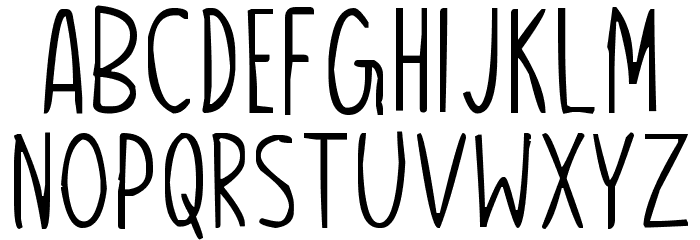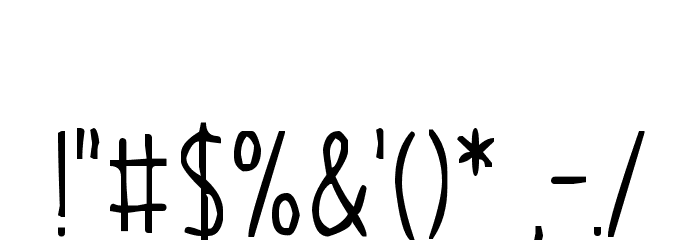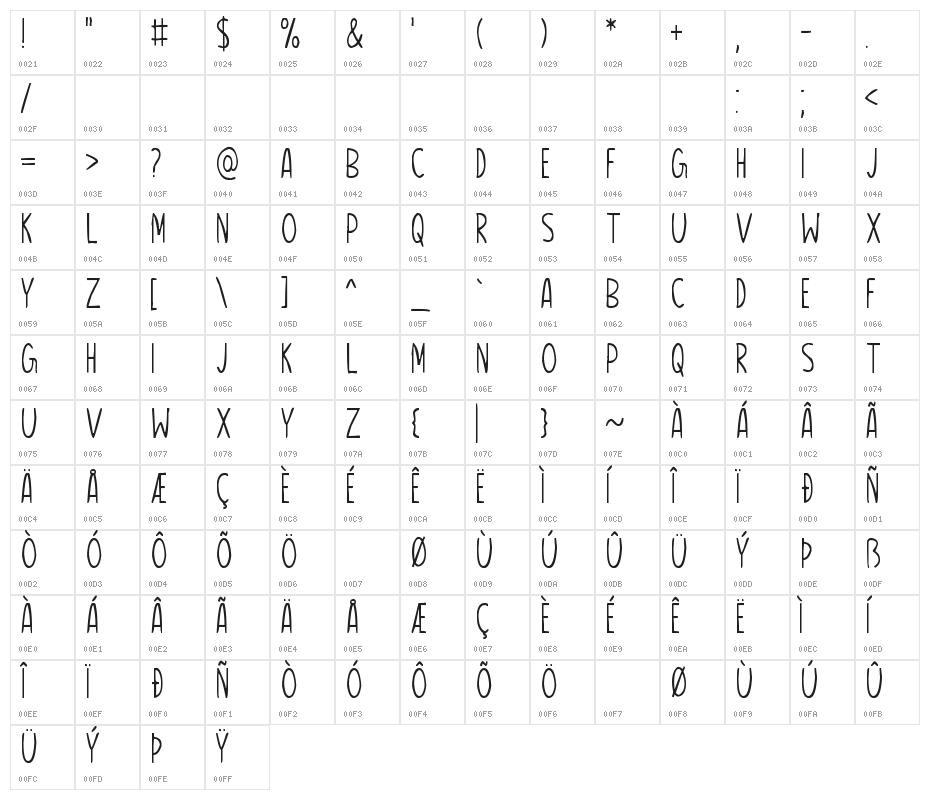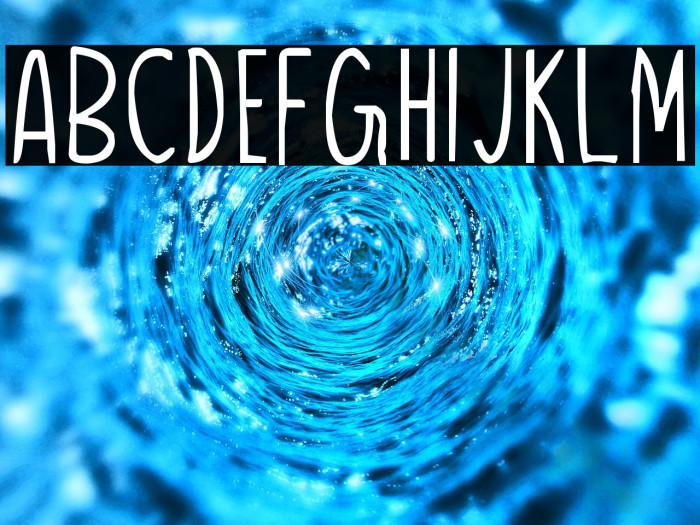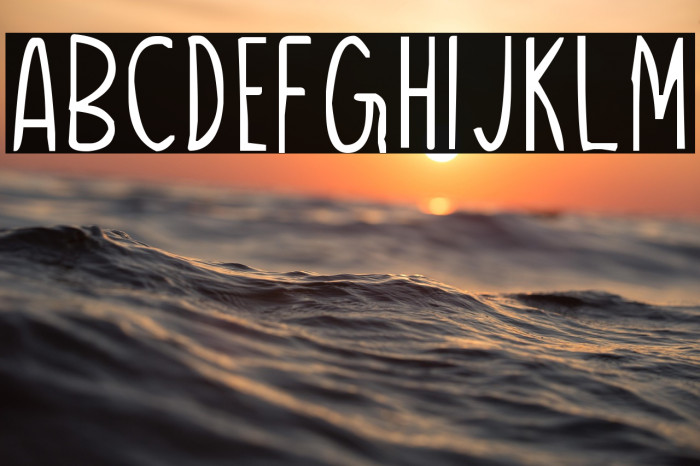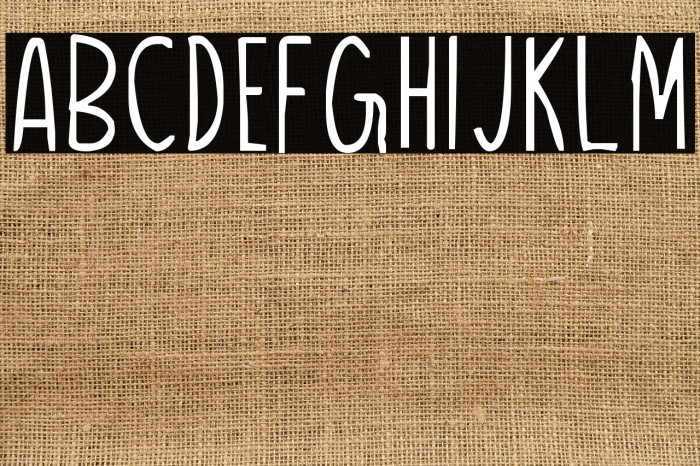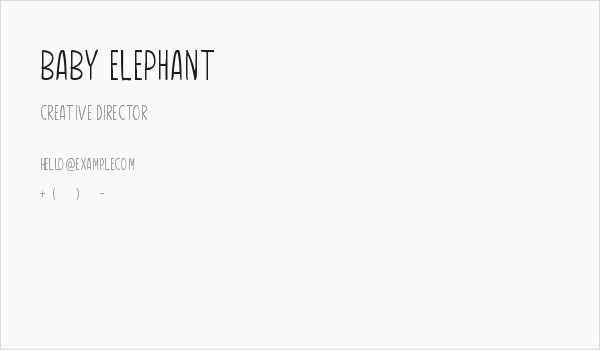
Baby Elephant Font
A playful, handwritten font with tall, narrow letters and a casual style.
Playful handwritten font with tall, narrow letters.
- Font: Baby Elephant
- Proposed Projects: Children's books, casual invitations, playful branding.
- Category: Handwritten
- Overall Style: Casual